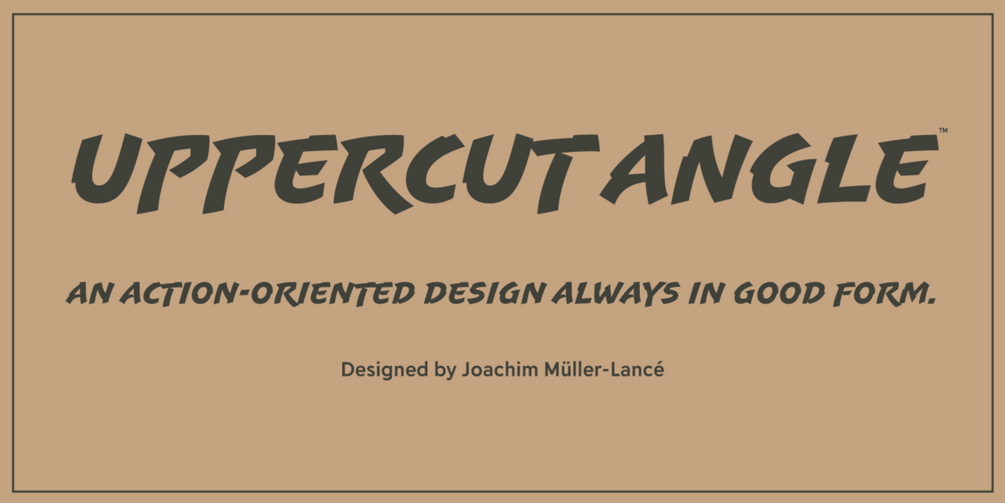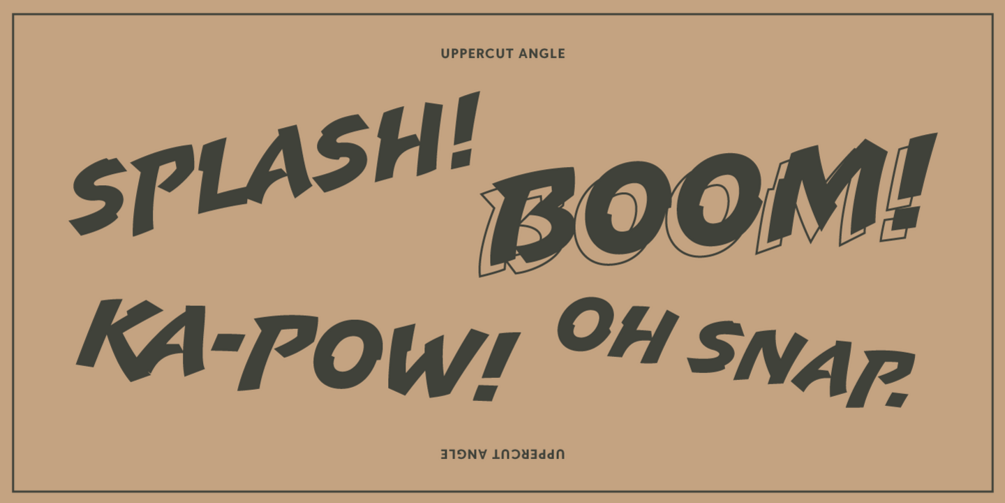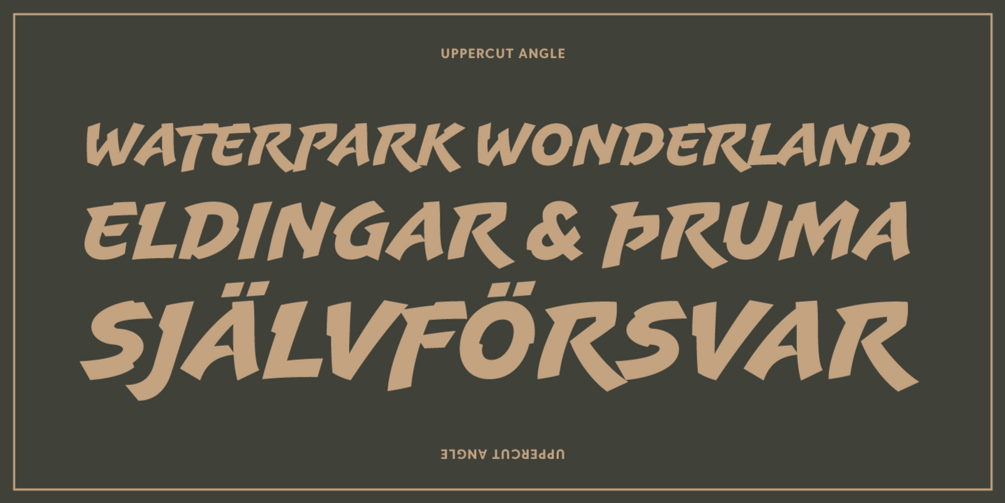
The design idea for Joachim Müller-Lancé’s Uppercut Angle sprang from pencil sketches developed for a new identity for the Krav Maga training cen­ter of San Francisco.
Uppercut’s shapes are not cal­li­graphic or handwritten, more like lettering seen in comics or sports logos. Its brush movements are imag­inary, not too literally brushy. During development, details were sim­pli­fied and reduced until a bit of a cut-paper feel emerged, but more fluid like writing. The shapes are eco­nomi­cal and efficient; simplicity makes the font ver­sa­tile, holding up in small as well as big sizes.
Uppercut Angle is powerful, fast, confident, and dynamic. In the proportions, there is emphasis on a strong upper edge “keep­ing its guard up”, while several stems protrude down­ward, making it “light on its feet”.
Version 1.3 is a significant expansion of the glyph repertoire that increases language support to over 270 languages, including Vietnamese, Oceanian, and more.
Use Uppercut Angle to pick up the pace, add snap, verve, and drive, on movie posters for action and adventure, product logos, food packaging, or an invitation to your barbecue.